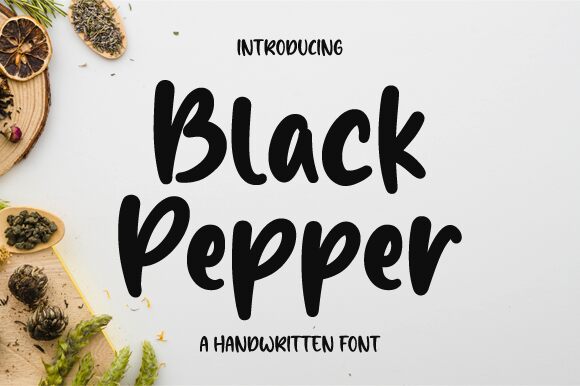
Black Pepper
Black Pepper font by Graphix Line Studio captures attention with its bold, handwritten style. This lively and expressive free font offers a playful yet sophisticated touch, ideal for those seeking to make a memorable impact.
The Black Pepper font's striking characteristics make it perfect for branding, social media graphics, and creative projects where personality is key. Its robust strokes provide clarity and charm, ensuring your message stands out beautifully.